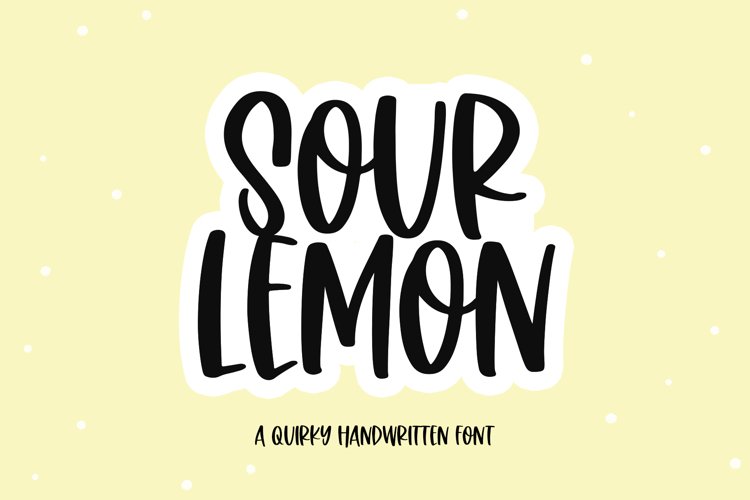
Sour Lemon - A Fun Handwritten Font
Sour Lemon is a handwritten font with big, quirky letters. It is an ALL CAPS font.
This font is perfect for quotes, headings, blogs, logos, invitations and more!
This font does include accent characters.